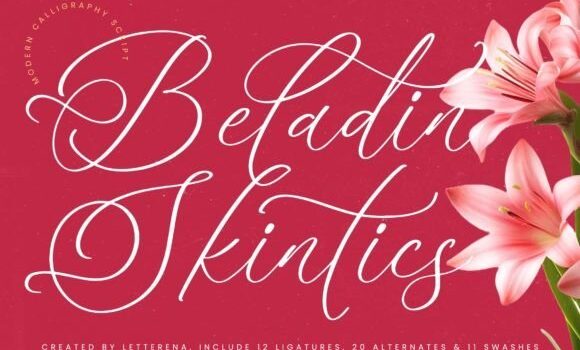
Beladin Skintics Font – Free Download Introduction to Beladin Skintics Font Beladin Skintics – Modern Calligraphy Script , from Letterena, is a Luxury Script font, suitable for any projects such as: logos, branding projects, homeware designs, product packaging, mugs, quotes,